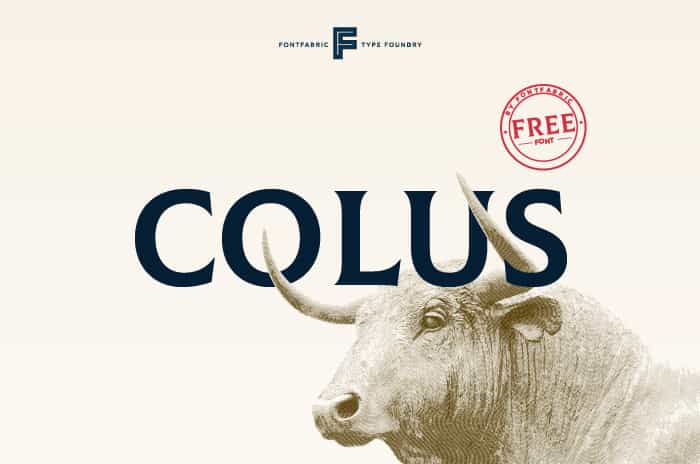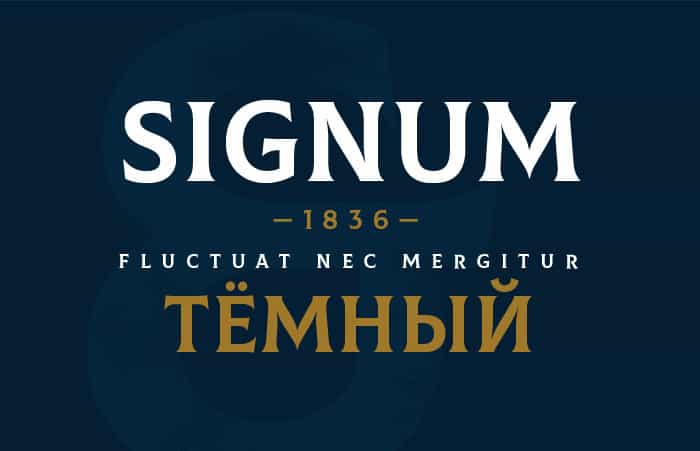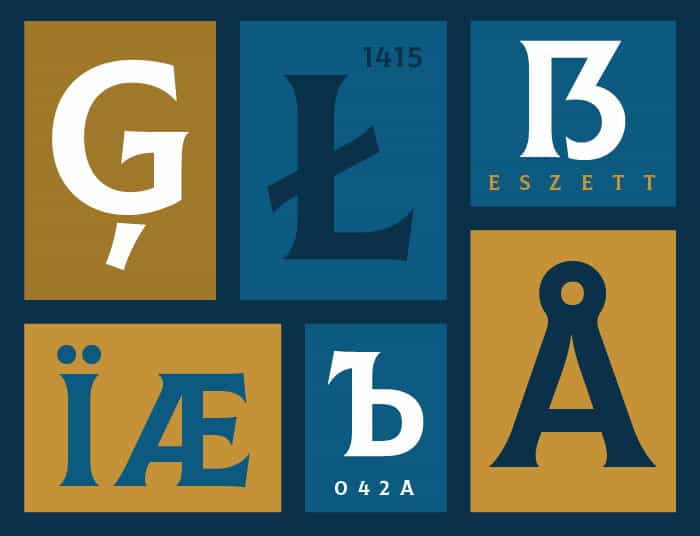
Discover Colus Display Font, part of the Serif Display collection—a versatile and unique font perfect for adding a personal touch to your projects. Download it for free and enjoy crafting designs with style, from invitations to social media posts. This font is available exclusively for personal use, giving you the freedom to create without limits. Unlock your creativity with Colus Display Font today!
Colus Display Font is a free display font, which was designed by Stan Partalev and it was his inspiration from stone and wooden carved letters inscriptions. Through its classical look and mature features, the typeface family is suitable for stunning headlines, outstanding logos, and lovely signs.